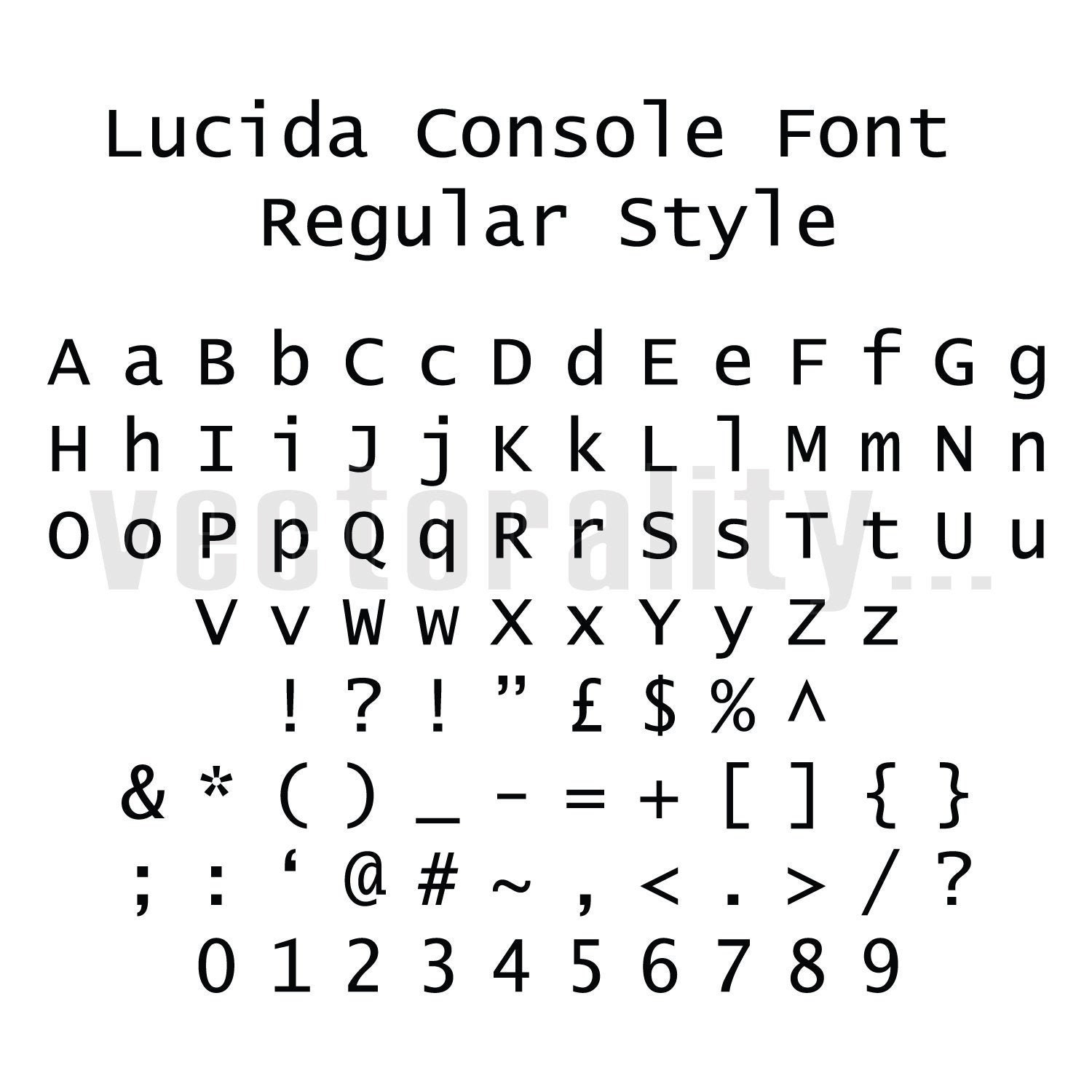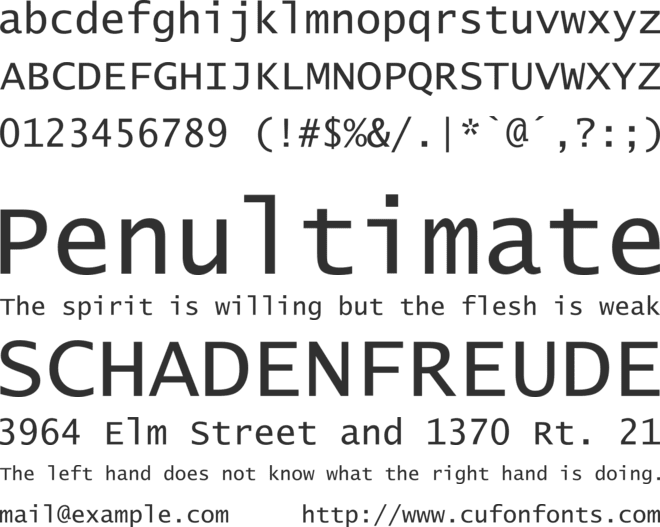
Lucida Console Font
Lucida Console Font - Web lucida console font. It supports latin, greek, cyrillic, arabic,. Discover other fonts in display. A version of lucida sans with expanded character sets, released around 2000. Wide range of uses including directories, tables, forms,. 7 million+ fonts & design assets. Web the lucida console family has 675 glyphs in each font, and supports the wgl and w1g character sets. This includes the extended latin, greek, and cyrillic alphabets along.
Web the lucida console family has 675 glyphs in each font, and supports the wgl and w1g character sets. Wide range of uses including directories, tables, forms,. 7 million+ fonts & design assets. Discover other fonts in display. Web lucida console font. It supports latin, greek, cyrillic, arabic,. A version of lucida sans with expanded character sets, released around 2000. This includes the extended latin, greek, and cyrillic alphabets along.
Discover other fonts in display. This includes the extended latin, greek, and cyrillic alphabets along. 7 million+ fonts & design assets. Web the lucida console family has 675 glyphs in each font, and supports the wgl and w1g character sets. It supports latin, greek, cyrillic, arabic,. Wide range of uses including directories, tables, forms,. Web lucida console font. A version of lucida sans with expanded character sets, released around 2000.
7 million+ fonts & design assets. This includes the extended latin, greek, and cyrillic alphabets along. Wide range of uses including directories, tables, forms,. Web the lucida console family has 675 glyphs in each font, and supports the wgl and w1g character sets. Discover other fonts in display.
Web lucida console font. Discover other fonts in display. This includes the extended latin, greek, and cyrillic alphabets along. A version of lucida sans with expanded character sets, released around 2000. It supports latin, greek, cyrillic, arabic,.
Discover other fonts in display. A version of lucida sans with expanded character sets, released around 2000. 7 million+ fonts & design assets. Web lucida console font. It supports latin, greek, cyrillic, arabic,.
Discover other fonts in display. It supports latin, greek, cyrillic, arabic,. A version of lucida sans with expanded character sets, released around 2000. 7 million+ fonts & design assets. Web lucida console font.
7 million+ fonts & design assets. Web lucida console font. It supports latin, greek, cyrillic, arabic,. Discover other fonts in display. A version of lucida sans with expanded character sets, released around 2000.
This includes the extended latin, greek, and cyrillic alphabets along. Web lucida console font. Web the lucida console family has 675 glyphs in each font, and supports the wgl and w1g character sets. A version of lucida sans with expanded character sets, released around 2000. It supports latin, greek, cyrillic, arabic,.
It supports latin, greek, cyrillic, arabic,. Web lucida console font. This includes the extended latin, greek, and cyrillic alphabets along. Wide range of uses including directories, tables, forms,. 7 million+ fonts & design assets.
Web the lucida console family has 675 glyphs in each font, and supports the wgl and w1g character sets. It supports latin, greek, cyrillic, arabic,. Wide range of uses including directories, tables, forms,. Discover other fonts in display. A version of lucida sans with expanded character sets, released around 2000.
Web lucida console font. This includes the extended latin, greek, and cyrillic alphabets along. Web the lucida console family has 675 glyphs in each font, and supports the wgl and w1g character sets. A version of lucida sans with expanded character sets, released around 2000. It supports latin, greek, cyrillic, arabic,.
This includes the extended latin, greek, and cyrillic alphabets along. Wide range of uses including directories, tables, forms,. A version of lucida sans with expanded character sets, released around 2000. Discover other fonts in display. Web lucida console font.
Web The Lucida Console Family Has 675 Glyphs In Each Font, And Supports The Wgl And W1G Character Sets.
Web lucida console font. This includes the extended latin, greek, and cyrillic alphabets along. Wide range of uses including directories, tables, forms,. 7 million+ fonts & design assets.
It supports latin, greek, cyrillic, arabic,. A version of lucida sans with expanded character sets, released around 2000.